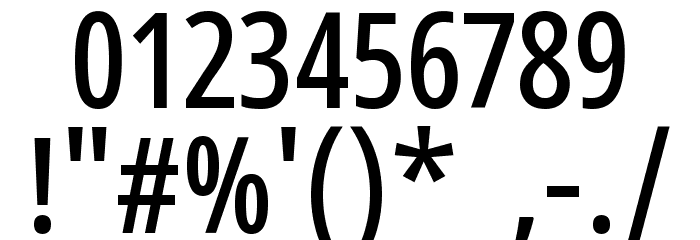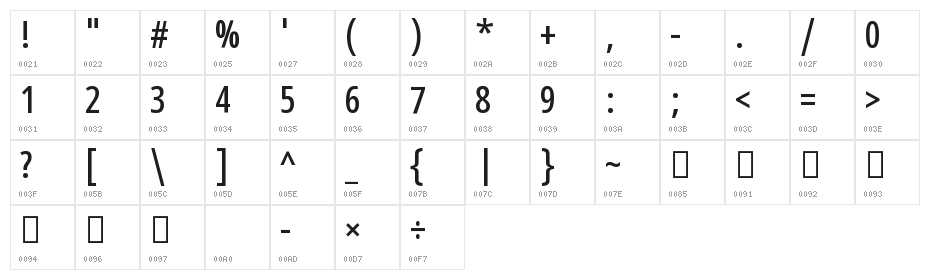
Noto Sans Sinhala UI ExtraCondensed Medium Font
Noto Sans Sinhala UI ExtraCondensed Medium Description
This font is designed with a clean and modern aesthetic, featuring a sans-serif style that emphasizes clarity and readability. The characters are extra condensed, making it suitable for situations where space is limited but legibility is crucial. The medium weight provides a balanced appearance, ensuring that the text stands out without being overly bold. The numerals and special characters are crafted to maintain consistency with the overall design, offering a cohesive look across different types of content.
| Use Case | User interfaces, Mobile apps, Web design |
| Proposed Projects | Ideal for user interfaces, mobile applications, and web design where space is limited and readability is essential. |